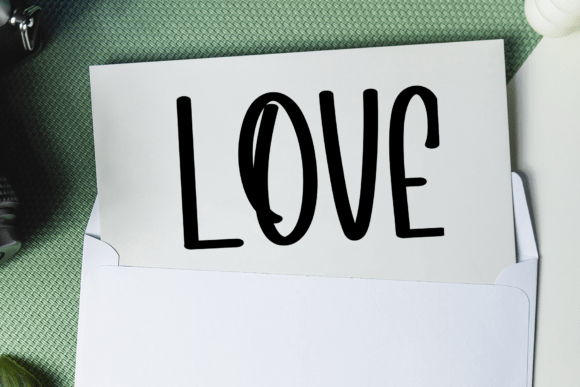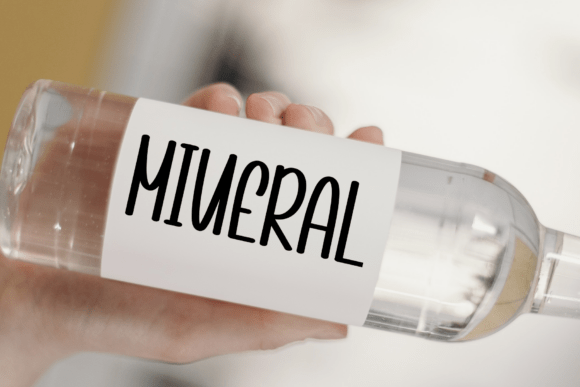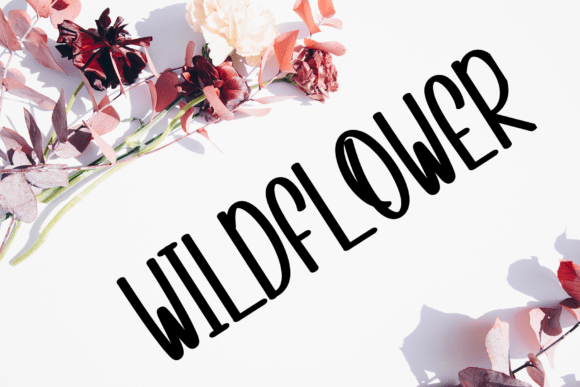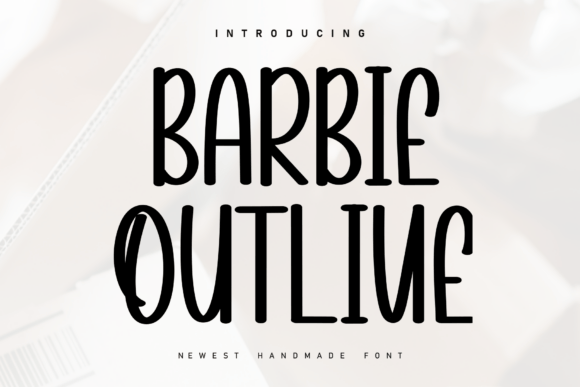
Introduction to Barbie Outline Font
Barbie Outline is a sweet and beautiful handwritten font.
Featuring characters that dance along the baseline, this font will add a cozy accent to any design project you wish to create .